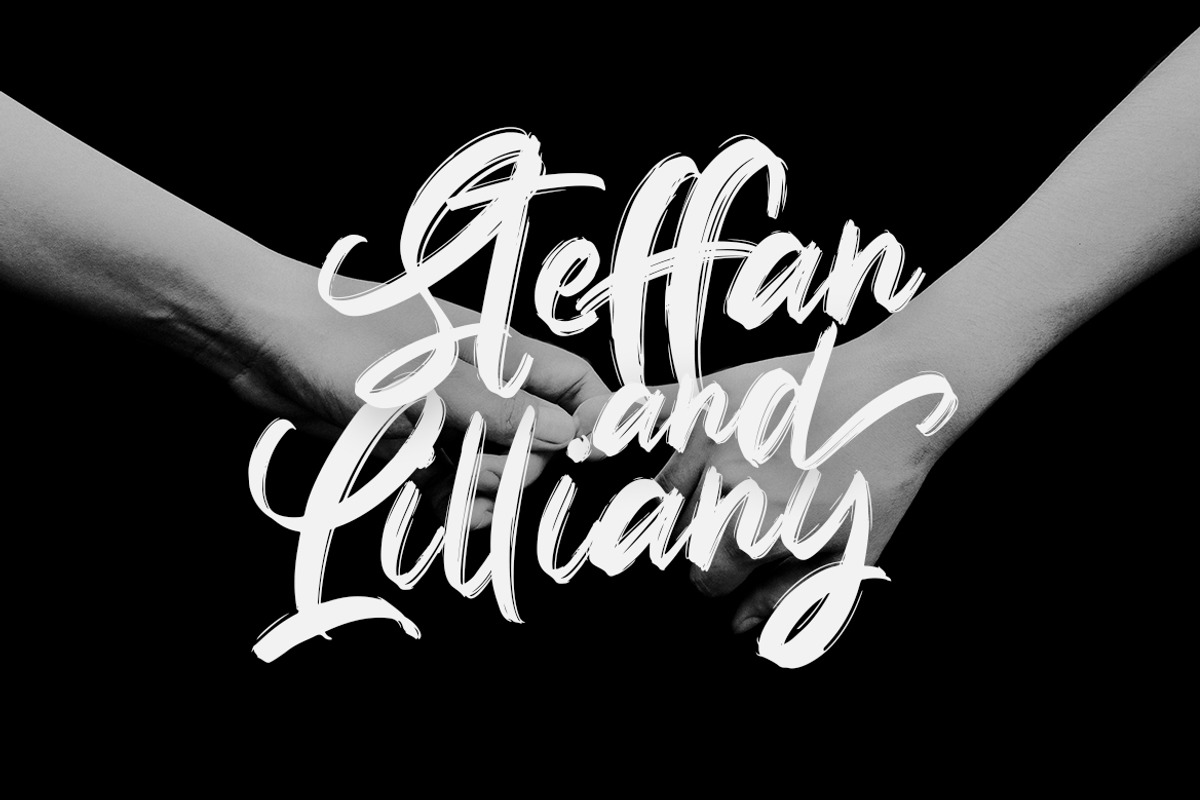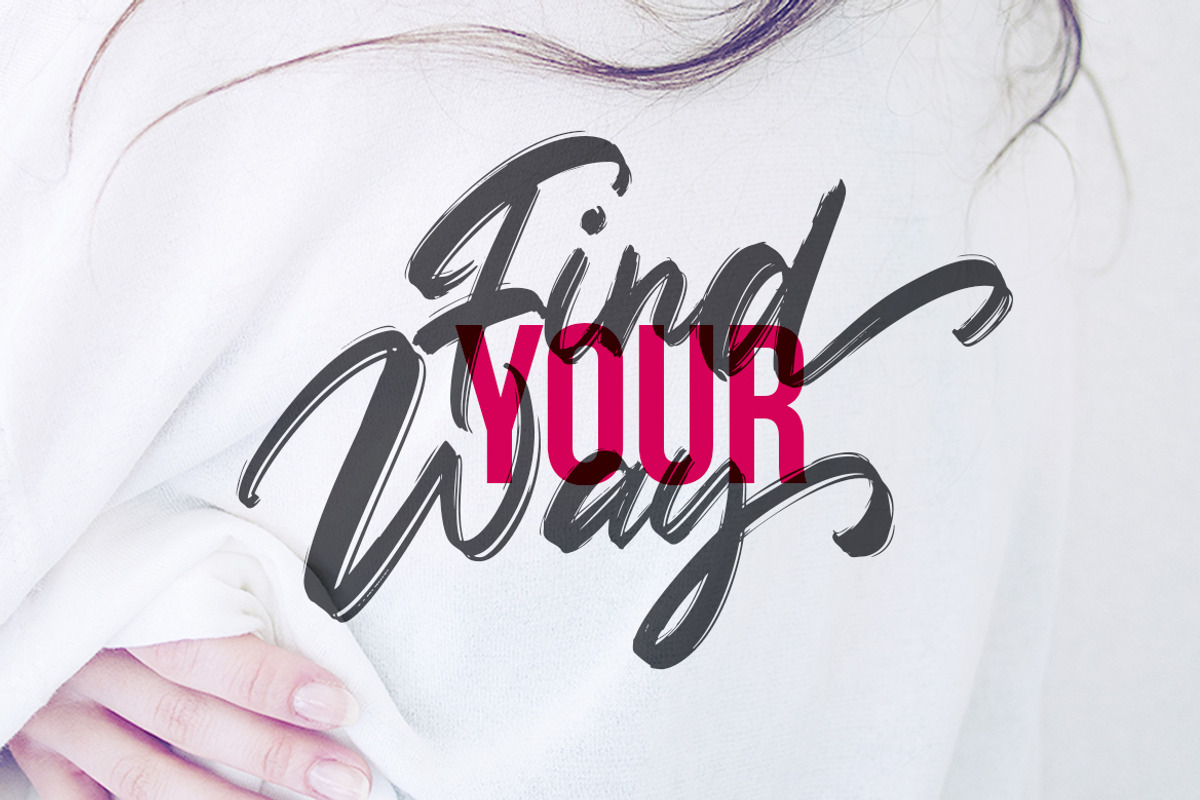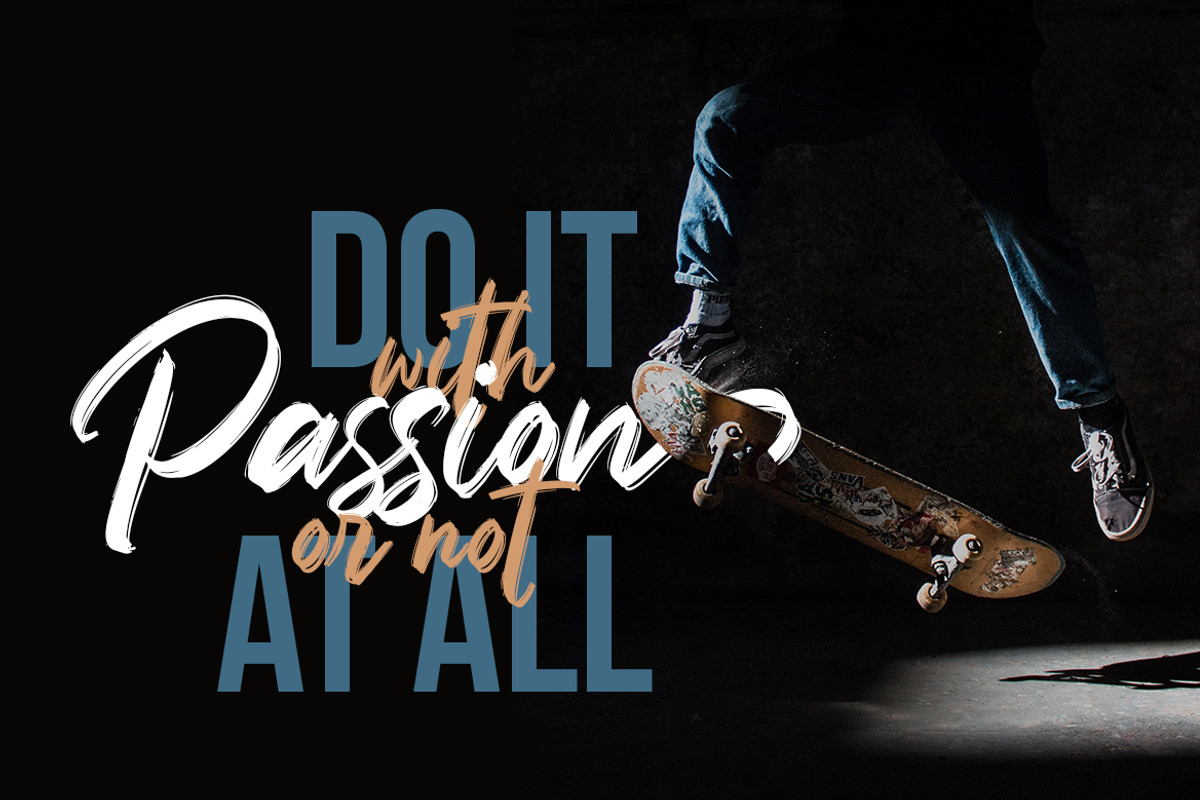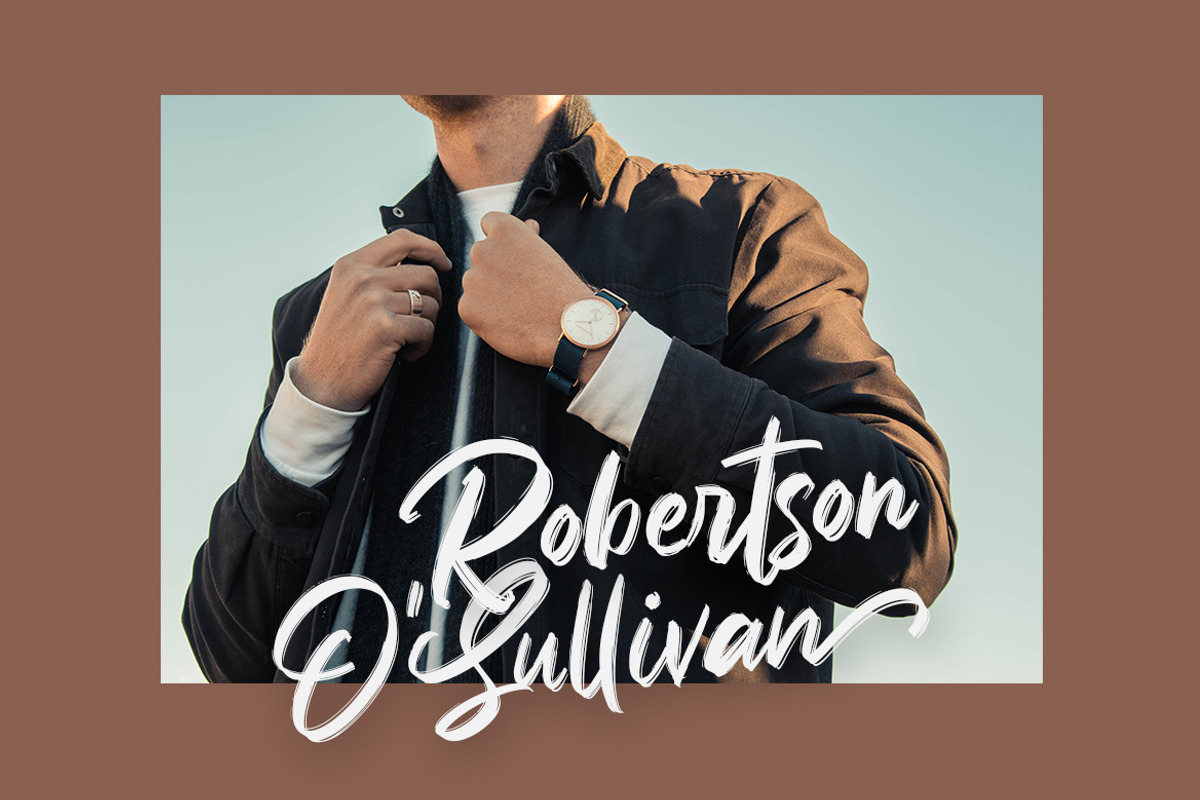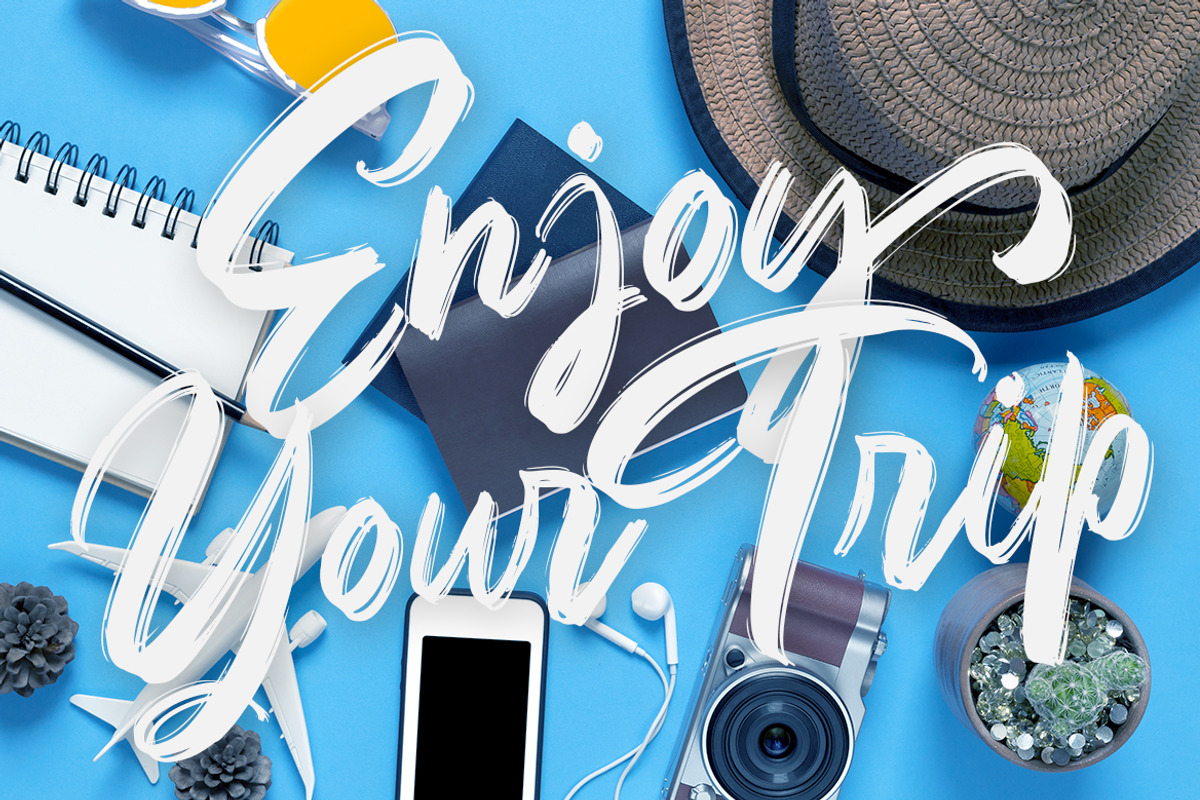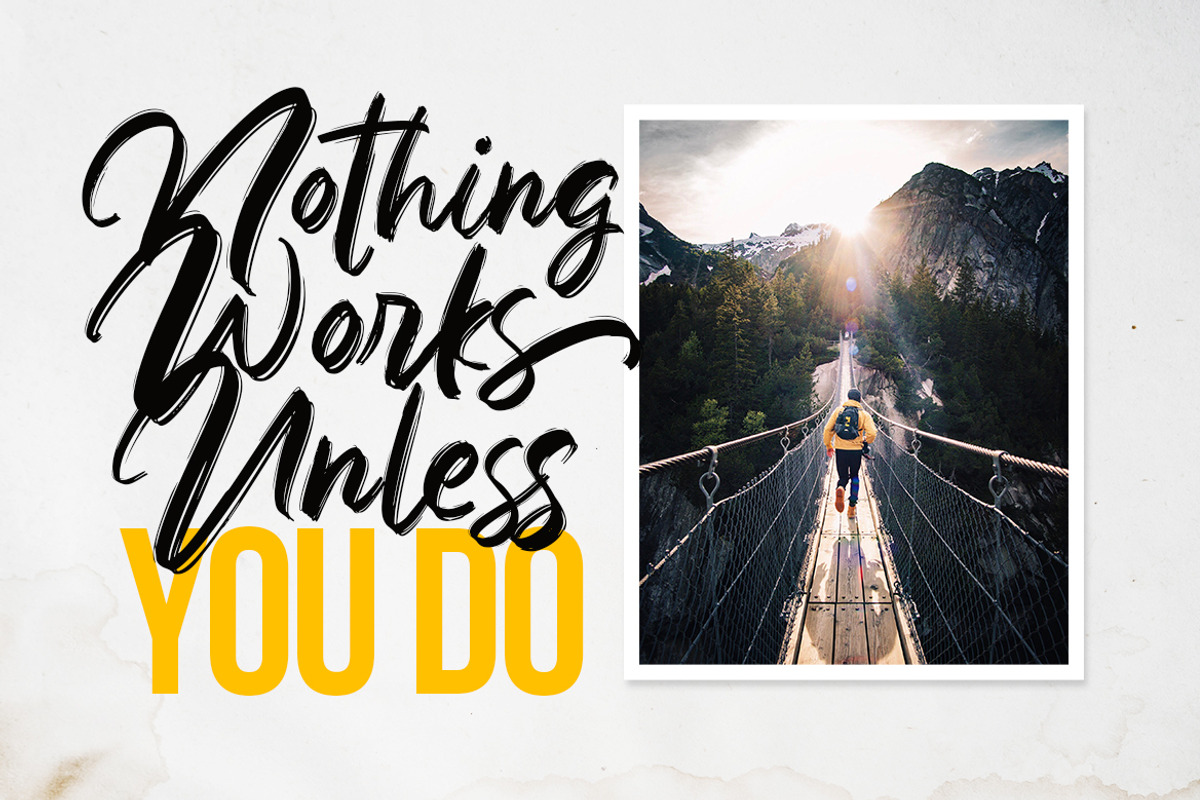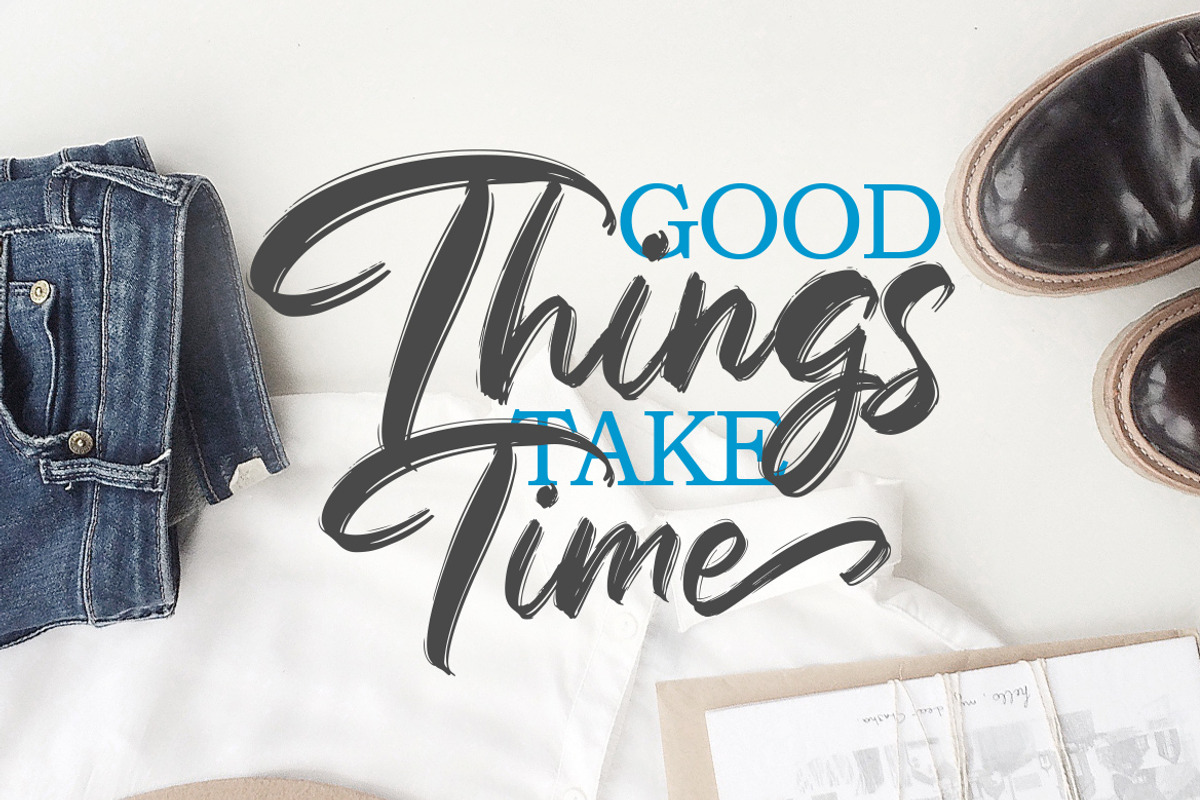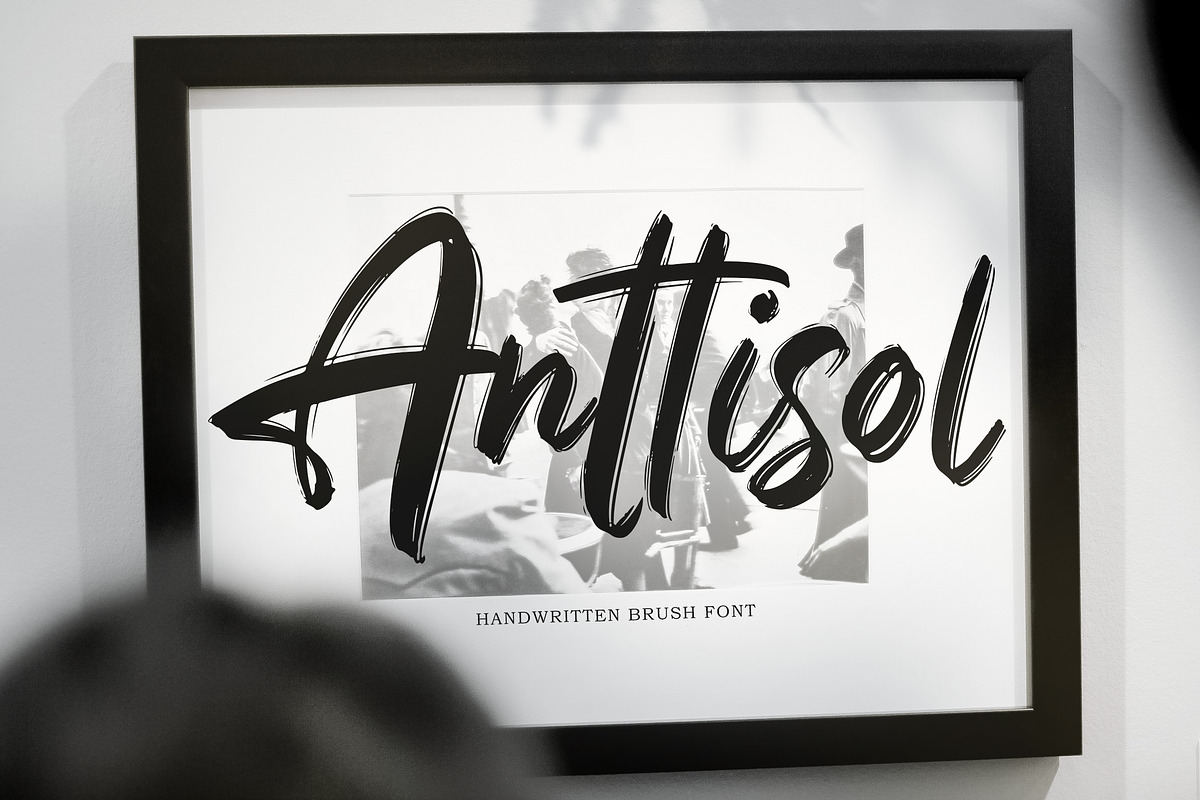
Anttisol - Handwritten Brush Font
Introducing Anttisol - Handwritten Brush Font, with natural rough dry brush strokes, and the stroke of hand quickly. You can use and enjoy Anttisol, for promotional material and anything.
And this font perfect for signature logo, handwritten quotes, wedding, product packaging, fashion magazine, photography, merchandise, branding projects, poster, social media post, book cover, and advertising. You can create more easily with alternatives to each letter and make it as if you wrote it yourself.
Why Anttisol - Handwritten Brush Font is worth a look
Anttisol - Handwritten Brush Font by Weape Studio fits naturally into Branding, posters, packaging, typography.